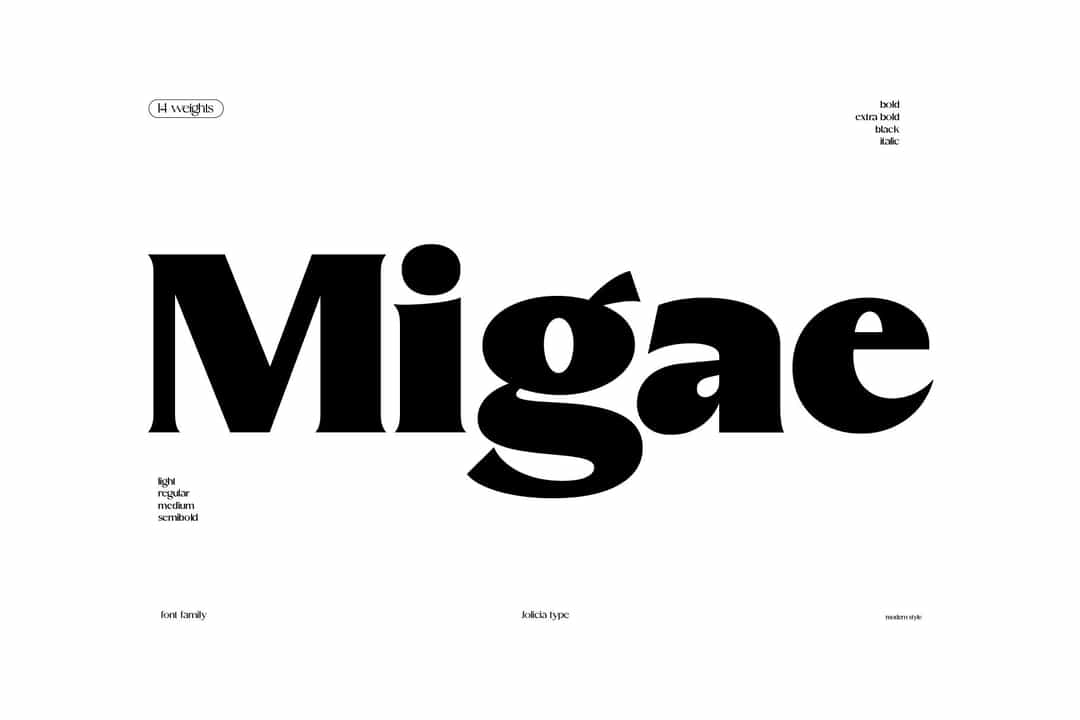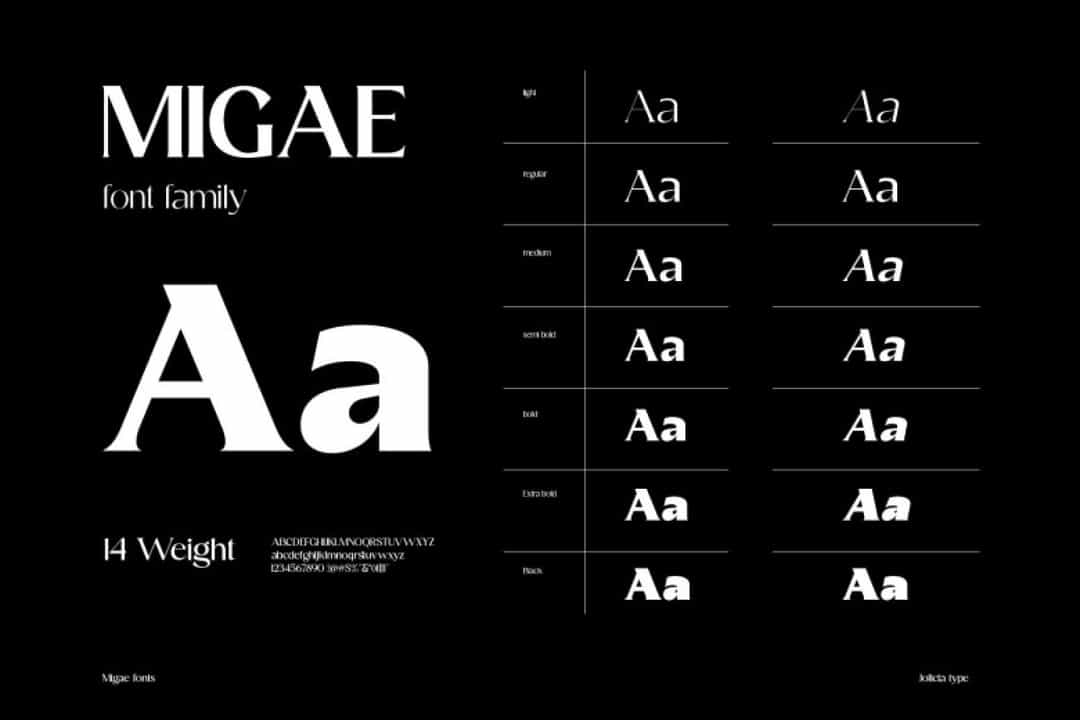
Discover Migae Font, part of the Serif Display collection—a versatile and unique font perfect for adding a personal touch to your projects. Download it for free and enjoy crafting designs with style, from invitations to social media posts. This font is available exclusively for personal use, giving you the freedom to create without limits. Unlock your creativity with Migae Font today!
Migae is an elegant and versatile font designed to engage readers across various designs. Boasting 14 weight variations spanning delicate Light to bold Black as well as its italic variant, Migae offers both elegance and strength to meet all of your typography needs.